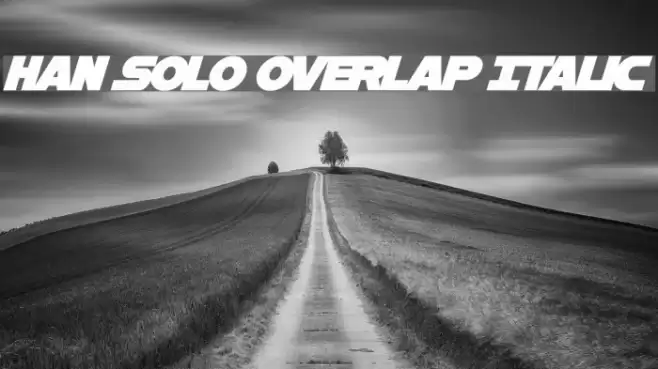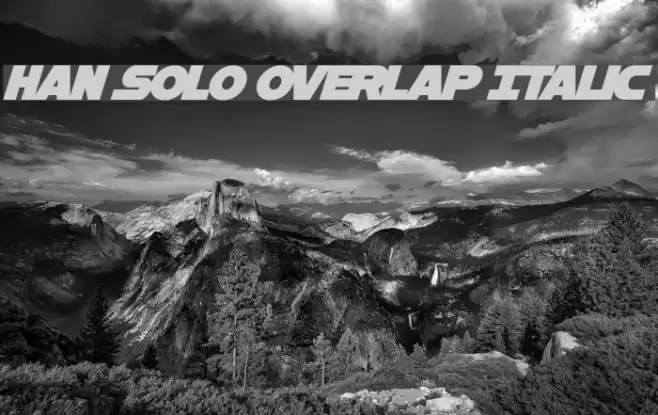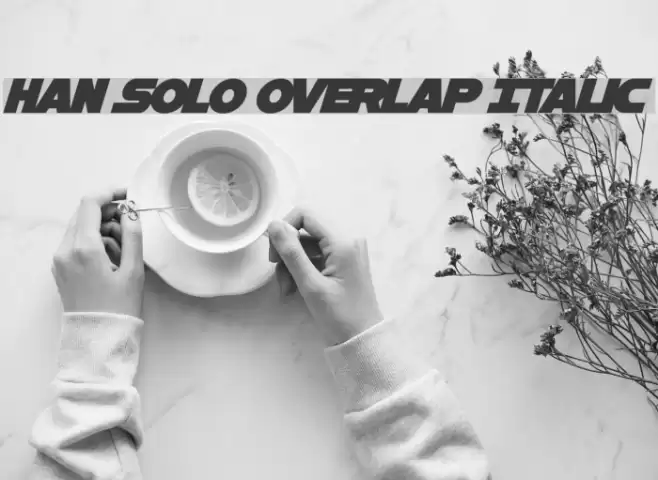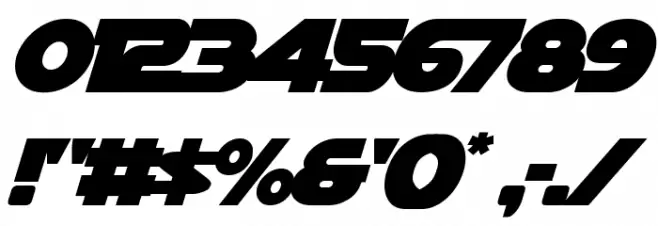
Han Solo Overlap Italic Font
Han Solo Overlap Italic Description
This font features a bold, italicized style with a futuristic and dynamic appearance. The characters are designed with a strong, forward-leaning slant, giving a sense of motion and speed. The strokes are thick and consistent, providing a robust and impactful look. The overall design is sleek and modern, with a slight overlap in some characters that adds to its unique aesthetic. This font is highly legible, making it suitable for various applications where a bold statement is needed.
A bold, italicized font with a futuristic and dynamic style from Uncategorized fonts.
- Proposed Projects: Ideal for sci-fi themed projects, movie posters, video game titles, and branding that requires a modern and bold look.
- Character Spacing: Tight